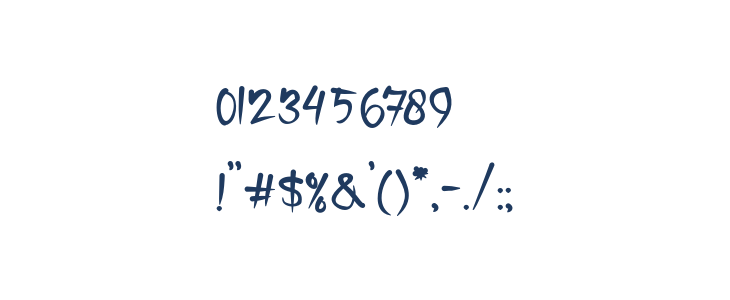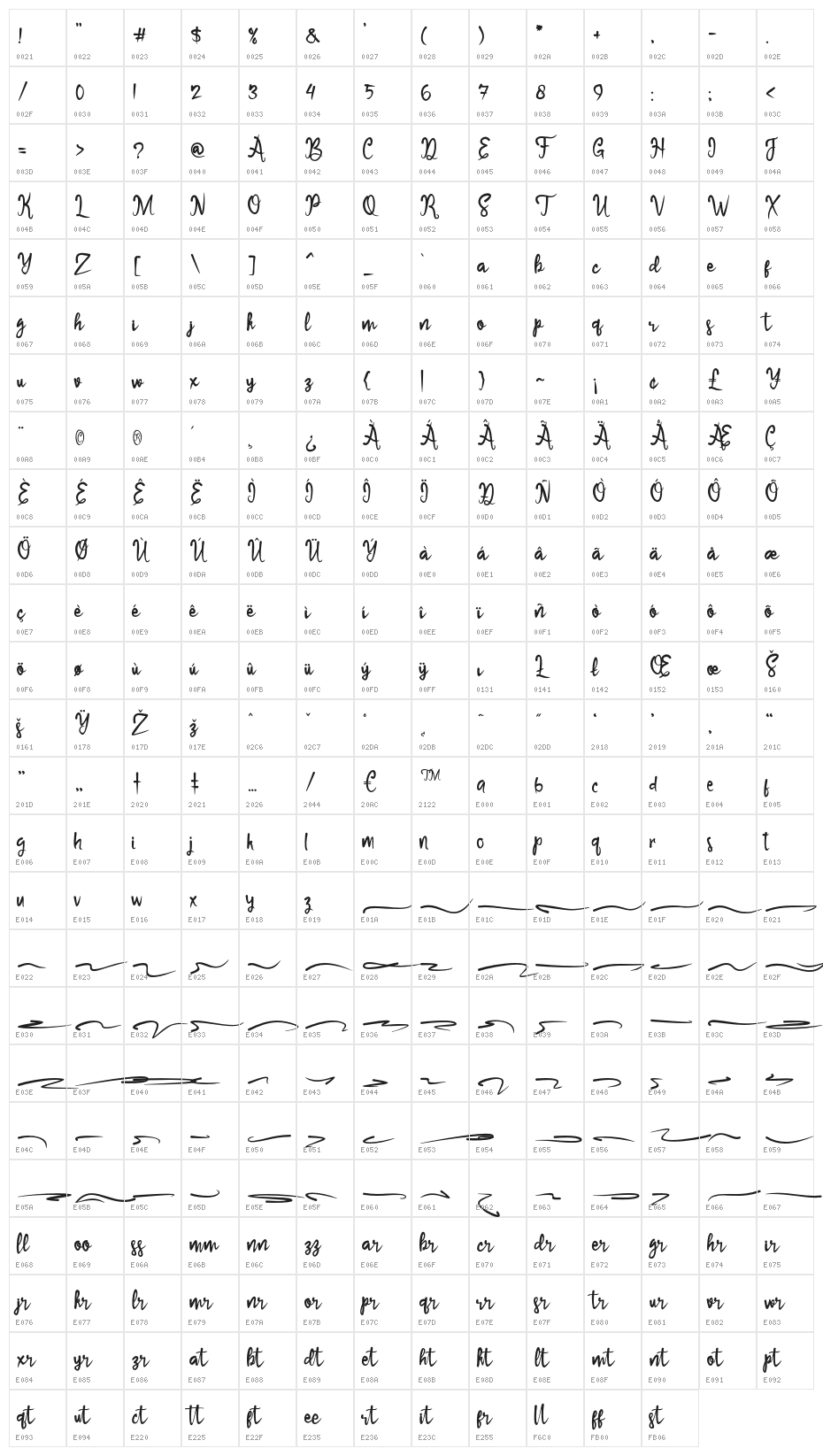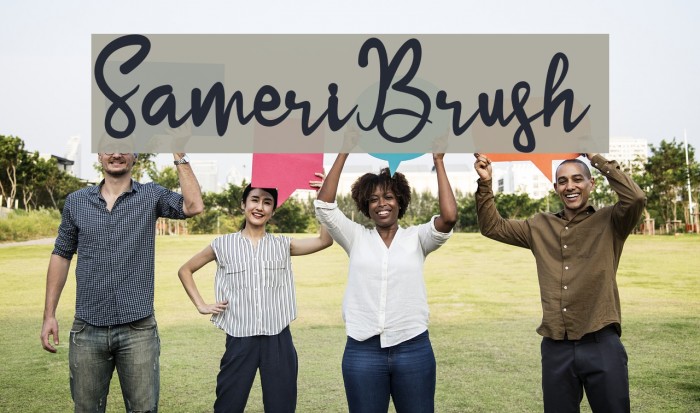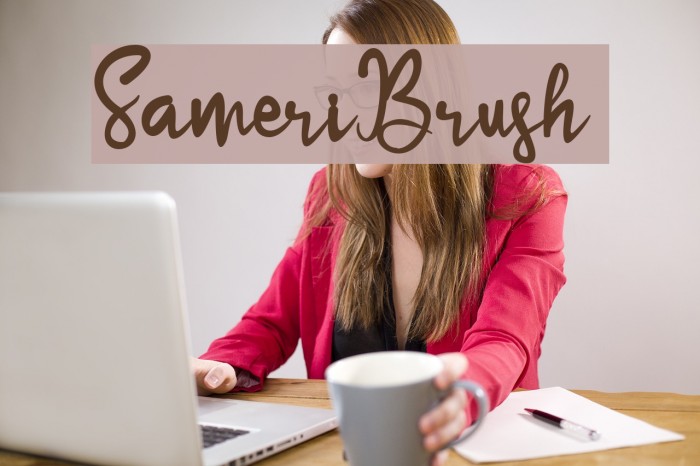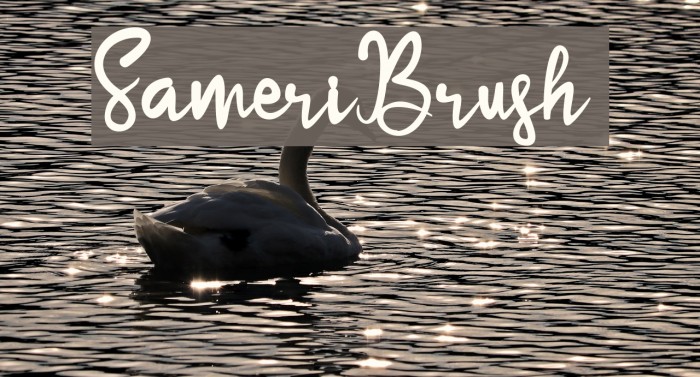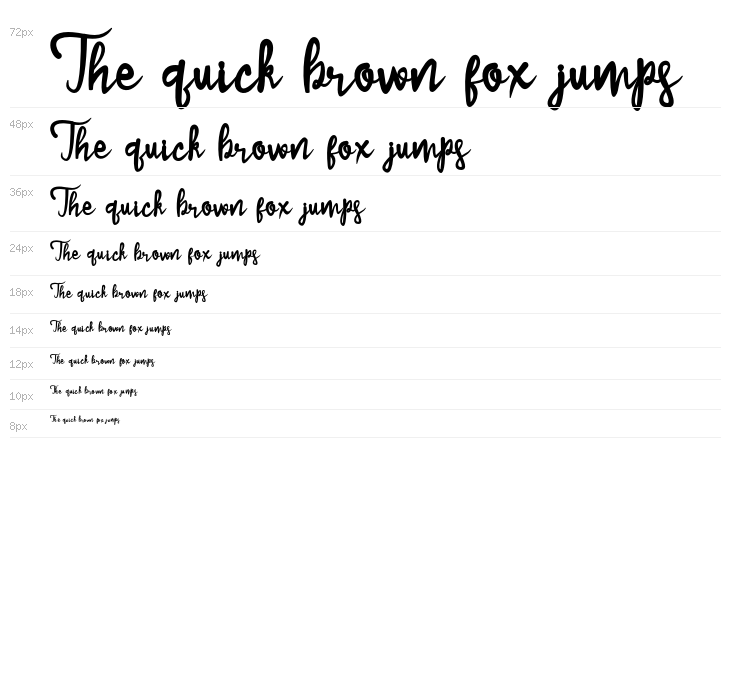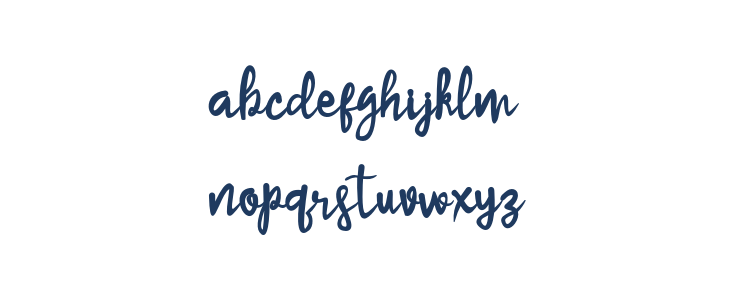
SameriBrush Font
SameriBrush Description
This font features a lively and expressive brush script style, characterized by its fluid and dynamic strokes. The uppercase letters exhibit a playful yet elegant flair, with varying stroke widths that add a sense of movement and energy. The lowercase letters maintain this energetic style, offering a cohesive look that is both artistic and approachable. The numerals and special characters are crafted with the same attention to detail, ensuring versatility across different uses. The overall design is reminiscent of hand-lettered calligraphy, making it ideal for projects that require a personal and creative touch.
| Use Case | Logos, Invitations, Greeting Cards |
| Proposed Projects | Ideal for branding, invitations, greeting cards, and creative projects that benefit from a personal touch. |